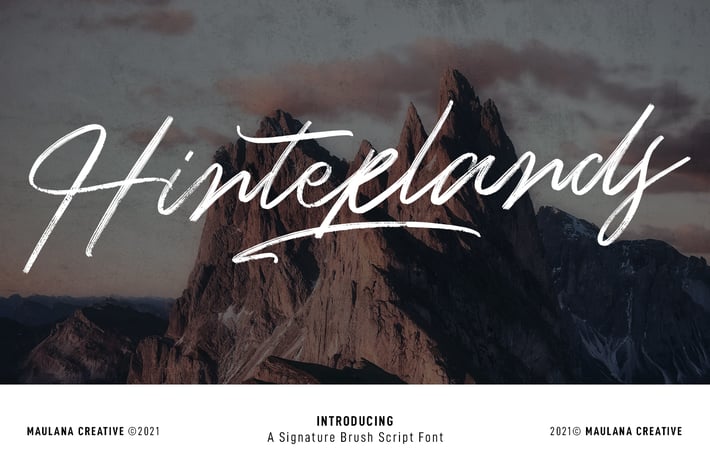
Hinterlands Signature Brush Font
Hinterlands is a signature brush script font. With regular rough brush stroke, fun character with a bit of ligatures extra swash and alternates. To give you an extra creative work. Hinterlands font support multilingual more than 100+ language. This font is good for logo design, Social media, Movie Titles, Books Titles, a short text even a long text letter and good for your secondary text font with sans or serif. Make a stunning work with Hinterlands font.